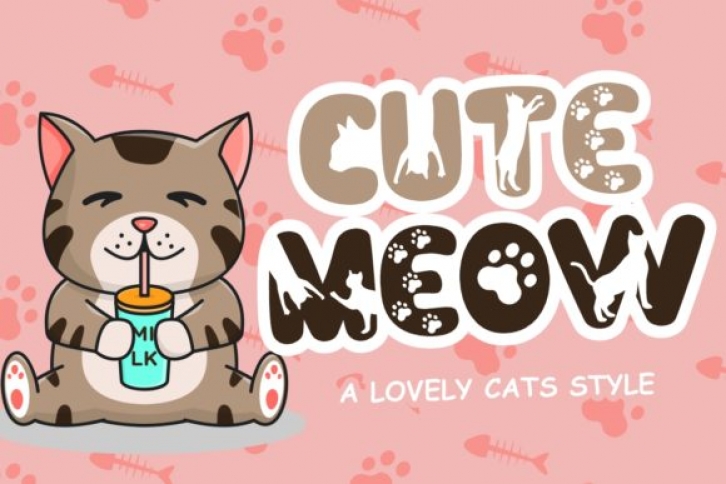
Cute Meow is an amazingly cute display font. It can easily be matched to an incredibly large set of projects, so add it to your creative ideas and notice how it makes them stand out!